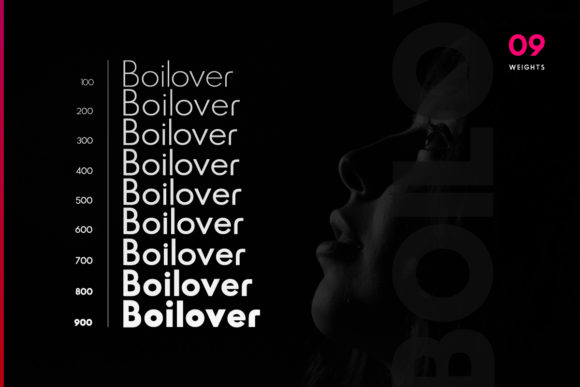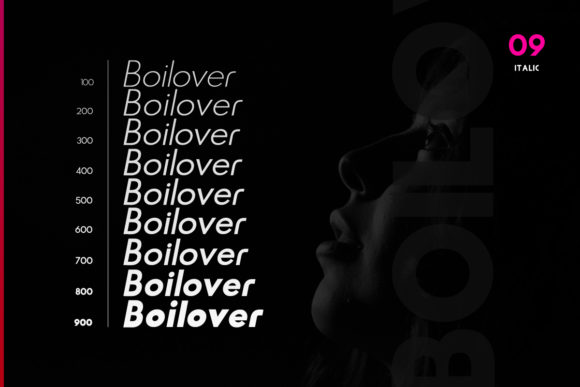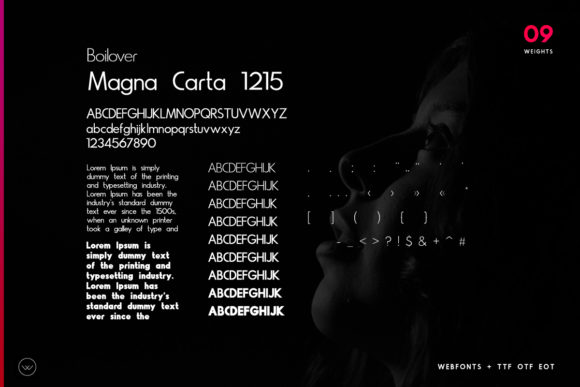
Introduction to Boilover Font
Boilover is a minimal and neat sans serif font.
Key Features of Boilover Font
Why Choose Boilover Font?
Boilover Font offers exceptional quality and versatility, making it a valuable addition to your design toolkit. Whether you’re creating for personal projects or commercial use, Boilover Font delivers professional results.